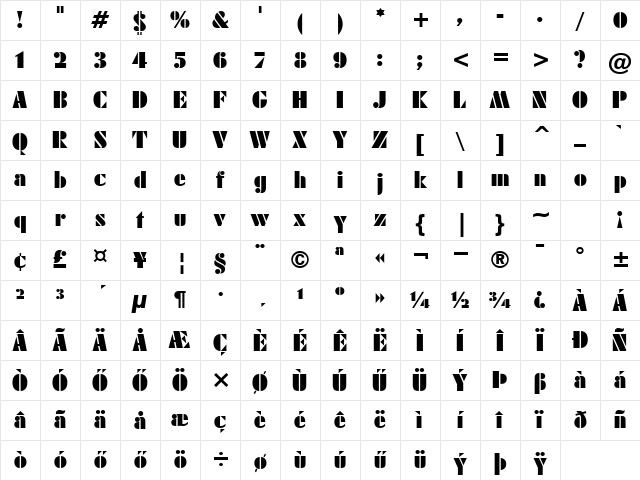
Complete H_Futura Black BT Regular glyph index. Displaying only characters natively supported by H_Futura Black BT Regular font.
H_Futura Black BT has a distinctly futuristic character, with geometric precision and clean angles that feel at home in technology, gaming, and sci-fi contexts.